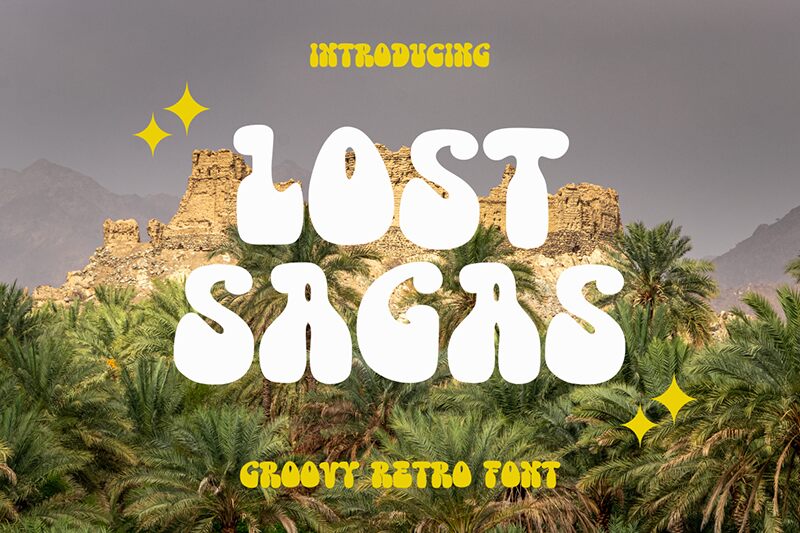
Lost Sagas font by Muhammad Yafinuha of Masyafi Studio cleverly combines a display design with a groovy style. This typeface has both a bold and condensed structure that leaves an almost comic-like impression. Random lines and clear shapes are combined to form the presented letters which are smooth, rounded, and clear for exceptional legibility. The font also carries a retro whim so that its final appearance is very original.
Use Lost Sagas font for posters, postcards, or t-shirt print designs. It will do equally well in social media banners and posts, logos, icons, app designs, web pages etc.